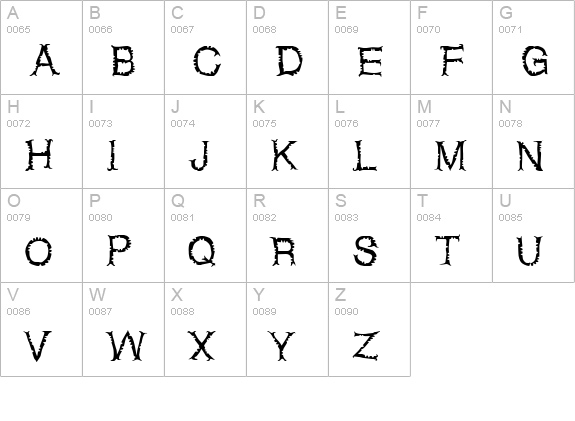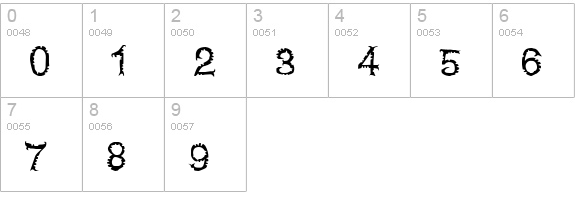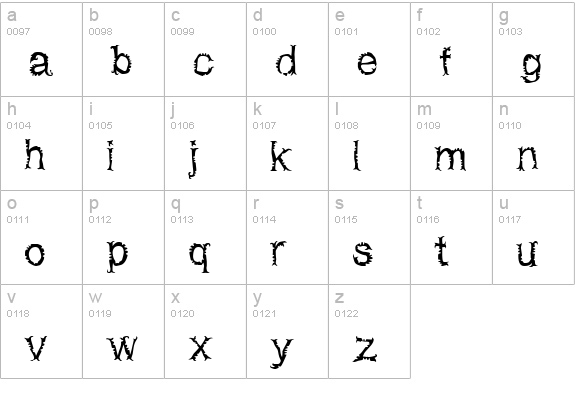
Netherworld Font Details
Introducing Netherworld font, a mesmerizing typeface that combines dark elegance with a touch of mystery. This unique font features intricate details and sharp edges, giving it a distinct and edgy look perfect for projects that require a bold statement. Netherworld font is not only visually striking but also versatile, making it suitable for a wide range of design applications. And the best part? Netherworld font is available for free download at FontsMarket.com! Whether you're working on a poster, logo, branding, or any other creative project, this font is sure to add a touch of intrigue and sophistication. Embrace the dark allure of Netherworld font and elevate your designs to a whole new level.